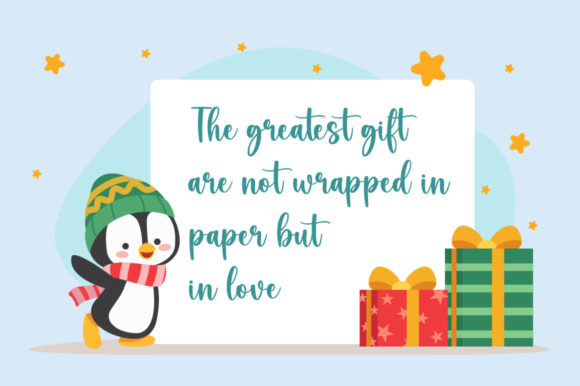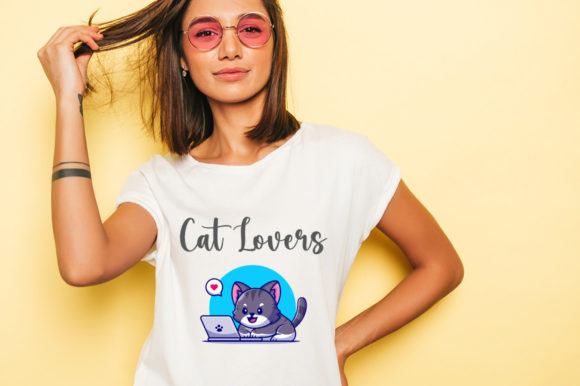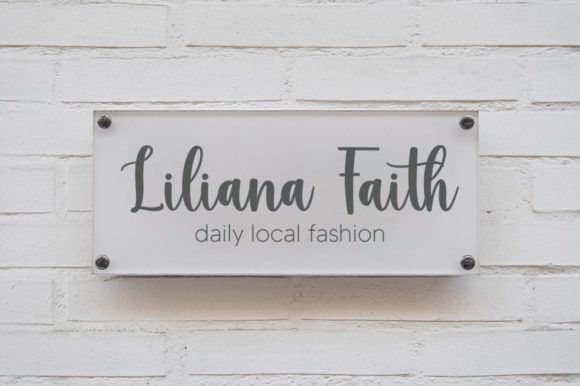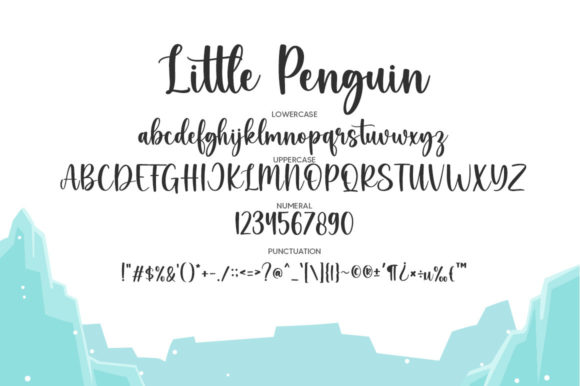
Introduction to Little Penguin Font
Imagine you’re sitting at your desk, surrounded by scraps of paper, paint swatches, and half-finished designs. The clock is ticking, and you need to create something special – a custom invitation, a heartfelt thank you card, or a unique logo. That’s when you stumble upon the perfect design resource: the Little Penguin Font. Its whimsical, handwritten charm is the key to unlocking your creative potential and elevating your design project to the next level.
As a designer, you understand the value of a high-quality font that can add a touch of magic to your work. The Little Penguin Font is more than just a pretty face – it’s a versatile tool that can be used on a wide range of designs, from greeting cards to business cards, and even logos. With its transparent background and customizable options, you can ensure that your design stands out from the crowd.
Key Features of Little Penguin Font
- Transparent background, allowing for easy customization and integration into various design elements.
- Unique, playful design inspired by the little penguin character, making it perfect for children’s books, educational materials, and other creative projects.
- Includes a range of characters, including uppercase and lowercase letters, numbers, and punctuation marks, to support a wide range of languages.
Honest Review: Little Penguin Font
- High quality and crisp lines, perfect for a creative project.
- Transparent background makes it easy to place on any design.
- The font is versatile and suitable for various design applications.
- ⚠️ Limited font styles available, so it might not be suitable for projects that require multiple font styles.
- ⚠️ Some users might find the font a bit too playful for certain design applications.
Overall, I’m quite impressed with the Little Penguin Font. It’s a great design resource for those looking for a high-quality, free font. With a bit of creativity, you can use it for various design projects. While it might not be perfect, it’s a solid addition to any design library.
The Little Penguin Font is perfect for a variety of design projects, including logos, icons, and graphics. It’s also great for creating invitations, posters, and other promotional materials.
To get the most out of the Little Penguin Font, be sure to use it with a transparent background to create a clean and professional look. You can also experiment with different font sizes and styles to add visual interest to your designs.